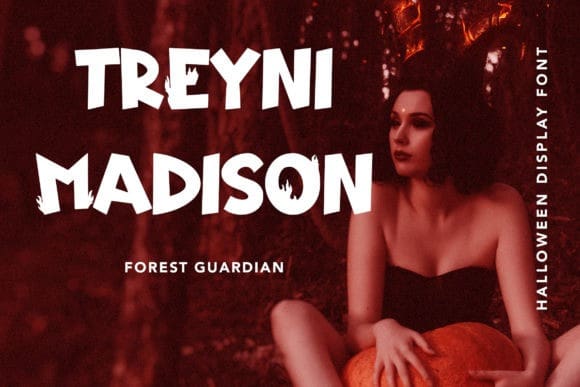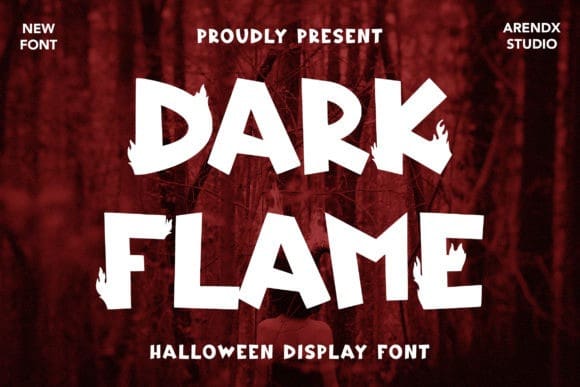
Dark Flame Font
Dark Flame Font is a bold, fun and uniquely designed display font. It is PUA encoded which means you can access all of the glyphs and swashes with ease!
DarkFlame embodies playfulness and authenticity and is the perfect choice for any children activity or school project.